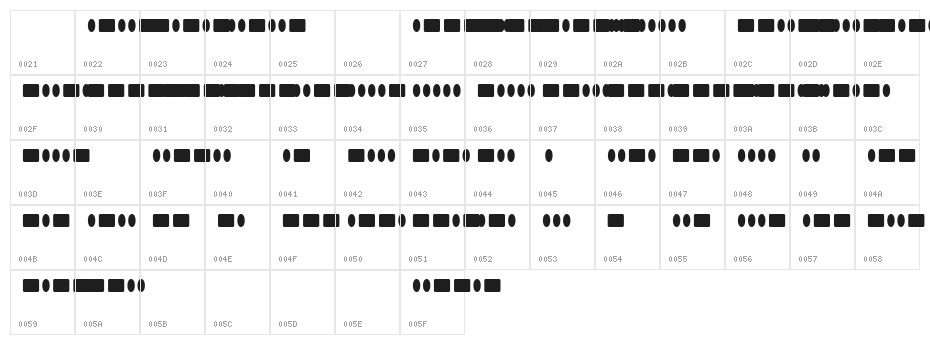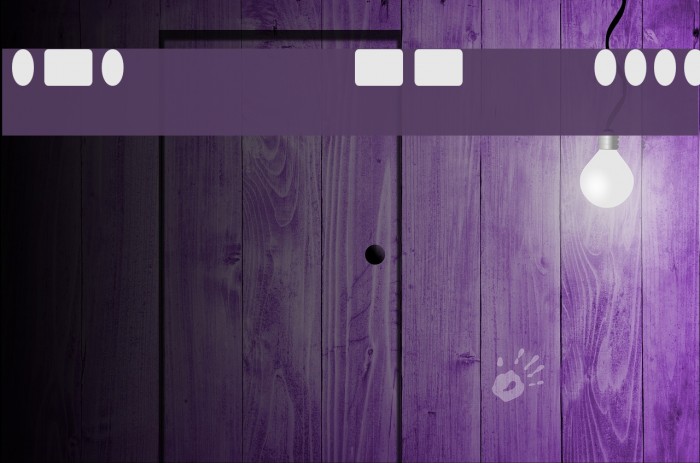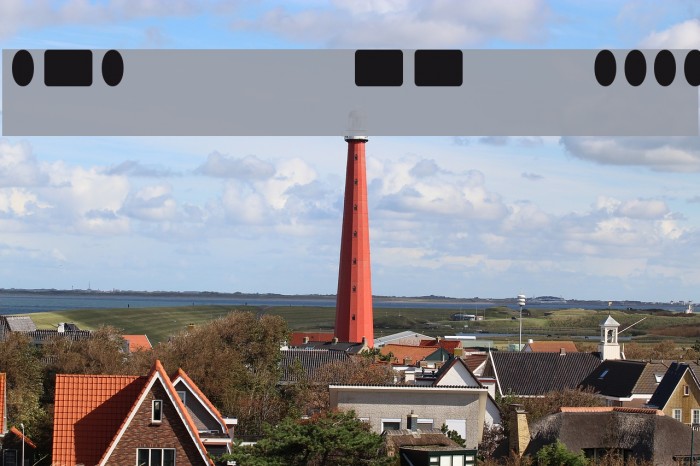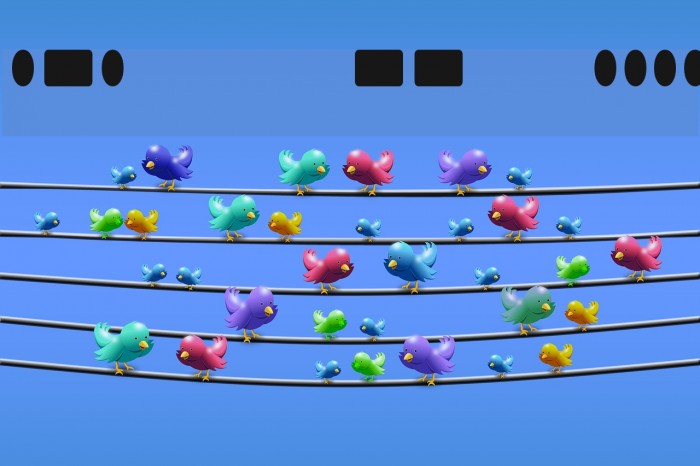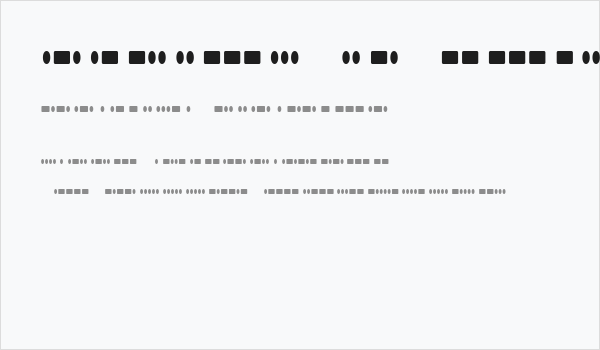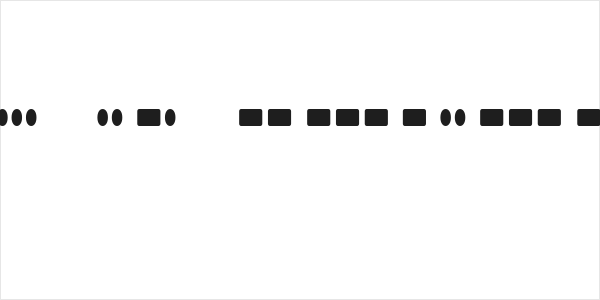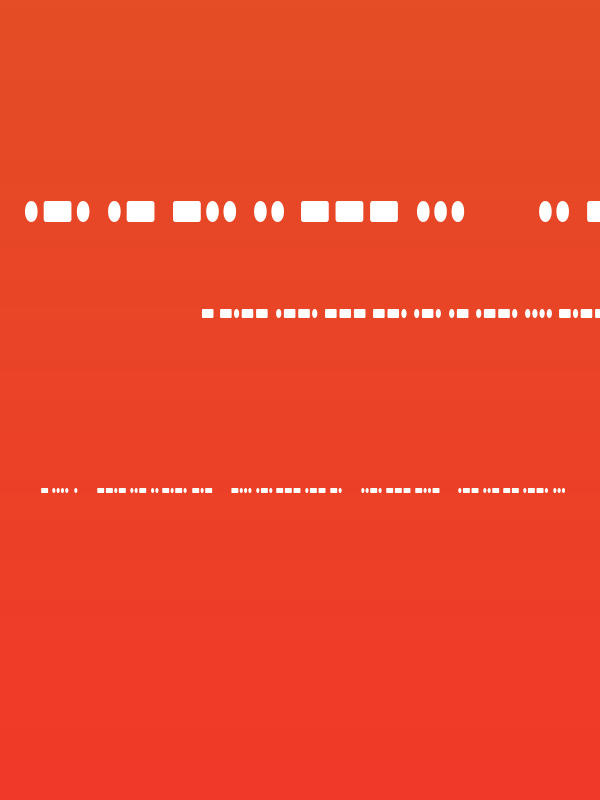
Radios in Motion Hard Font
| 用途 | Logos, Themed events, Educational materials |
| おすすめプロジェクト | Ideal for escape room themes, educational materials on Morse code, or creative design projects that require a unique and historical touch. |